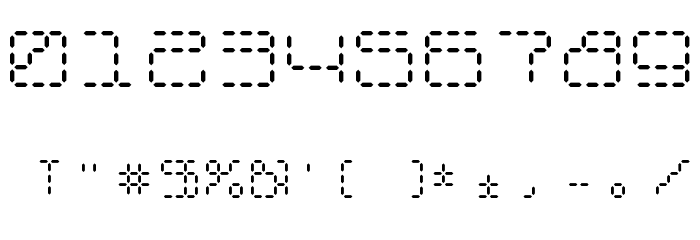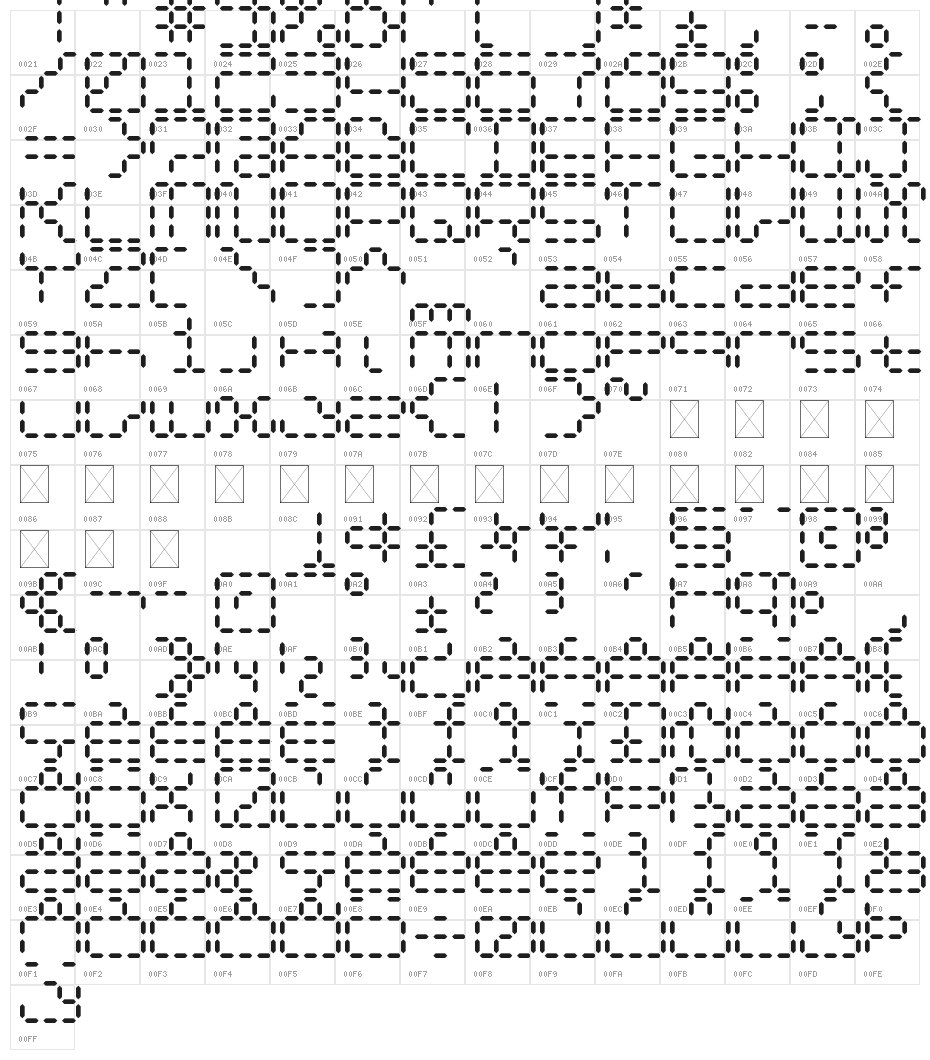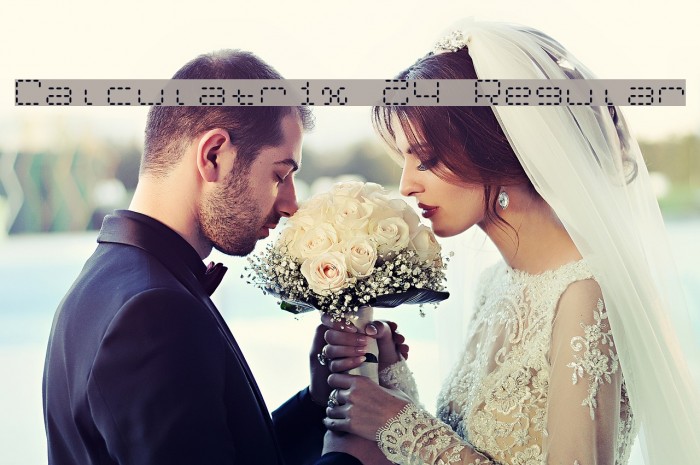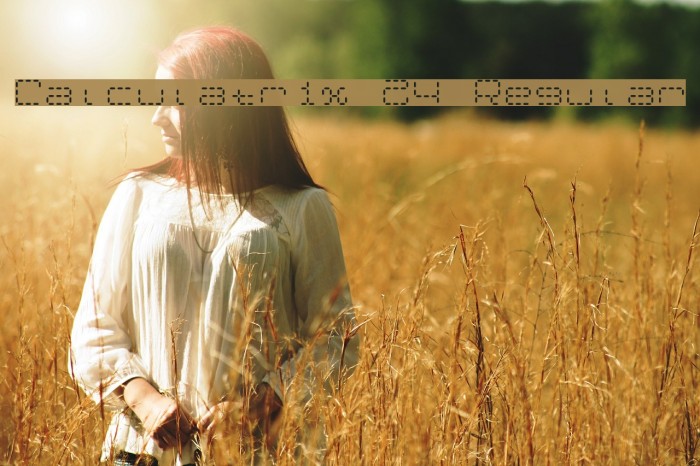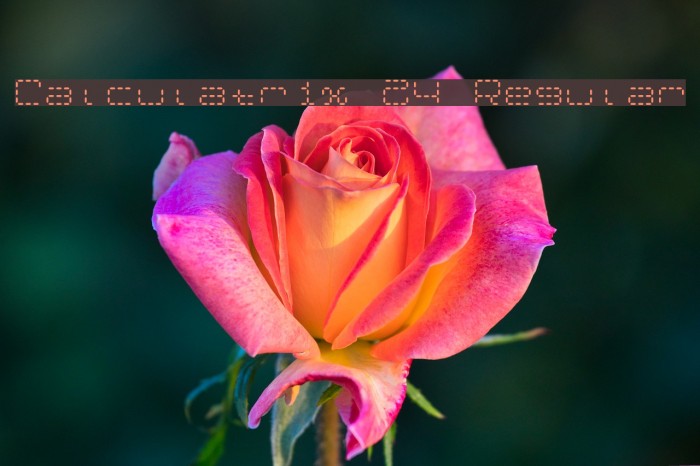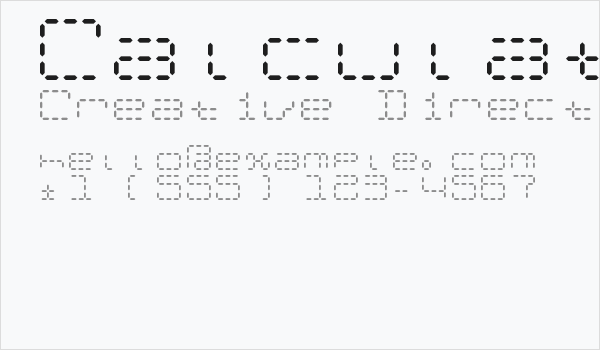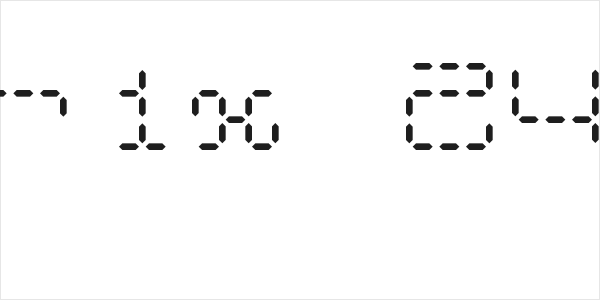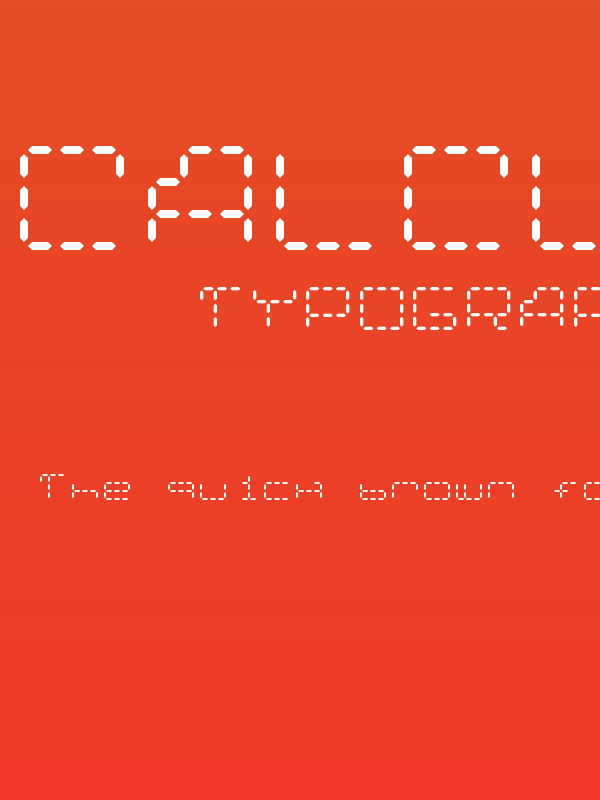
Calculatrix 24 Regular Font
Calculatrix 24 Regular Description
This font features a unique, dotted design that mimics the appearance of a digital display or a dot matrix printer. Each character is composed of evenly spaced dots, creating a modern and technological feel. The uppercase and lowercase letters maintain a consistent style, with rounded edges and uniform spacing. Numbers and special characters follow the same dotted pattern, ensuring a cohesive look across all glyphs. The font's distinct style makes it ideal for projects that require a futuristic or digital aesthetic.
| Use Case | Headlines, Logos, Digital displays |
| Proposed Projects | Ideal for digital displays, tech-themed designs, futuristic branding, and educational materials. |